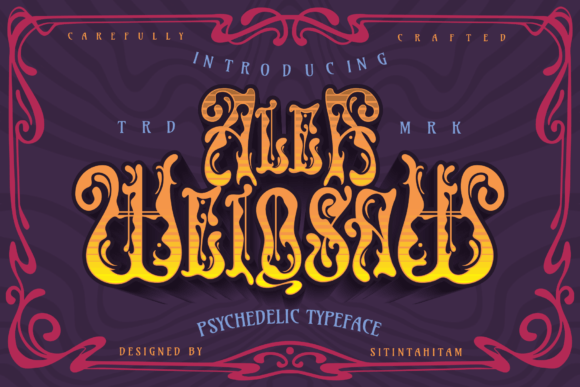
Alea Weiqsaw Font: A Trippy Display Font Inspired by the Victorian Era and Beyond
In the world of typography, fonts play a crucial role in conveying the tone and aesthetic of a design. For designers and crafters looking to add a touch of elegance and whimsy to their projects, Alea Weiqsaw Font is an excellent choice. This display font is inspired by the Victorian era, art nouveau, psychedelic art, and music, making it a unique and versatile addition to any design.
The Inspiration Behind Alea Weiqsaw Font
Alea Weiqsaw Font draws inspiration from some of the most iconic and influential art movements of the past. The Victorian era, known for its ornate and intricate designs, has left a lasting impact on the font’s style. Art nouveau, with its sinuous lines and organic forms, has also contributed to the font’s unique aesthetic. Additionally, the psychedelic art and music of the 1960s and 1970s have infused the font with a trippy, playful vibe.
A Unique Trippy Style
Alea Weiqsaw Font boasts a distinctive trippy style that sets it apart from other display fonts. Its intricate lines, swirling patterns, and ornate details create a mesmerizing effect that’s perfect for headlines, packaging designs, and vintage-style logotypes. The font’s unique style is sure to capture the attention of your audience and leave a lasting impression.
Uses for Alea Weiqsaw Font
Alea Weiqsaw Font is an incredibly versatile font that can be used in a variety of design projects. Here are some ideas to get you started:
- Headlines: Use Alea Weiqsaw Font to create eye-catching headlines for your blog posts, articles, or advertisements.
- Packaging Designs: Add a touch of elegance and sophistication to your product packaging with this beautiful font.
- Vintage-Style Logotypes: Create stunning vintage-style logotypes for your brand, similar to those found on cover albums or signage.
- Sign Logotypes: Design eye-catching sign logotypes for your business or event using Alea Weiqsaw Font.
- Vintage Headlines: Use the font to create vintage-inspired headlines for your website, social media, or marketing materials.
Why Choose Alea Weiqsaw Font?
With so many fonts available, why choose Alea Weiqsaw Font? Here are just a few reasons:
- Unique Style: Alea Weiqsaw Font offers a one-of-a-kind trippy style that’s sure to set your designs apart.
- Versatility: The font can be used in a wide range of design projects, from headlines to packaging designs.
- Elegance: Alea Weiqsaw Font exudes elegance and sophistication, making it perfect for high-end brands or designs.
Tips for Using Alea Weiqsaw Font
To get the most out of Alea Weiqsaw Font, here are a few tips:
- Experiment with Sizes: Play around with different font sizes to find the perfect balance for your design.
- Pair with Other Fonts: Combine Alea Weiqsaw Font with other fonts to create a unique and visually appealing typography.
- Use in Moderation: While Alea Weiqsaw Font is stunning, it’s best used in moderation. Use it sparingly to avoid overwhelming your design.
| Font Name | Alea Weiqsaw Font |
| Author | sitintahitam |
Alea Weiqsaw Font is a unique and versatile display font that’s perfect for designers and crafters looking to add a touch of elegance and whimsy to their projects. With its trippy style inspired by the Victorian era, art nouveau, psychedelic art, and music, this font is sure to capture the attention of your audience. Whether you’re creating headlines, packaging designs, or vintage-style logotypes, Alea Weiqsaw Font is an excellent choice.